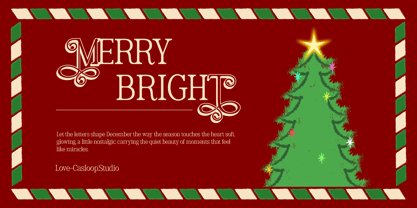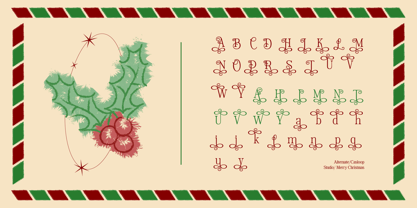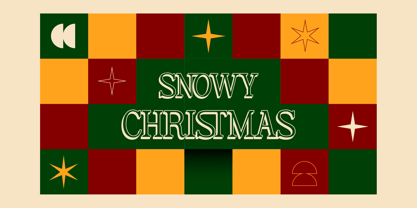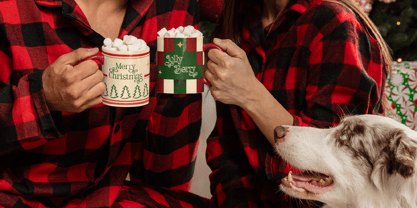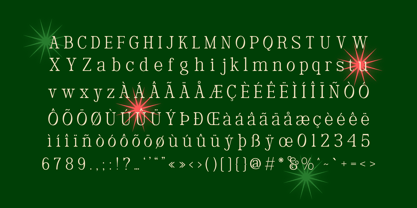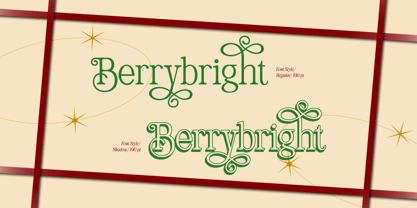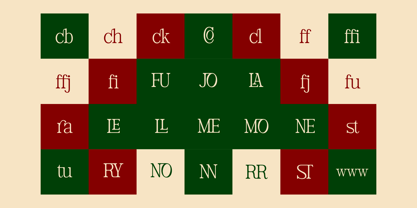
Belgion
by Casloop Studio
The Belgion Font Family was designed by Wantara Putra and published by Casloop Studio. Belgion contains 2 styles and family package options.
BELGION is an elegant Christmas display typeface designed to infuse classic holiday warmth into beautifully shaped letters. Featuring flowing swashes, elongated tails, and a ribbon-like movement, each character exudes an ornamental, festive charm reminiscent of a winter story penned with vintage allure. In its Regular style, BELGION offers a clean, modern elegance ideal for holiday headlines and refined seasonal branding. The Shadow style enhances its presence, providing a nostalgic, dimensional appearance akin to traditional winter market signage, classic Christmas storefronts, and handcrafted holiday posters. This subtle volume adds a glowing, decorative depth to every word. Signature letters such as R, Y, M, H, B, and S showcase long, expressive swashes that twist like gift ribbons, embodying BELGION’s identity: ornamental yet balanced, joyful yet sophisticated, festive without sacrificing timeless grace. Best For: • Festive display headlines & Christmas promotional titles • Seasonal branding, posters, and holiday campaigns • Premium gift tags, packaging, and greeting cards • Classic winter signage & editorial holiday layouts • Social media visuals seeking elegant, joyful Christmas energy Compatible with: Adobe Illustrator, Photoshop, Affinity, Figma, Canva, Kittl. With two styles — Regular and Shadow — BELGION transitions effortlessly from soft elegance to bold, dimensional festive charm. Its extended Latin multilingual support enhances versatility, while its ribbon-inspired details transform every design into a beautifully wrapped visual gift. From winter festival posters to Christmas campaign hero images, BELGION delivers classic beauty, soft sparkle, and joyful holiday storytelling to every project.
Designers: Wantara Putra
Publisher: Casloop Studio
Foundry: Casloop Studio